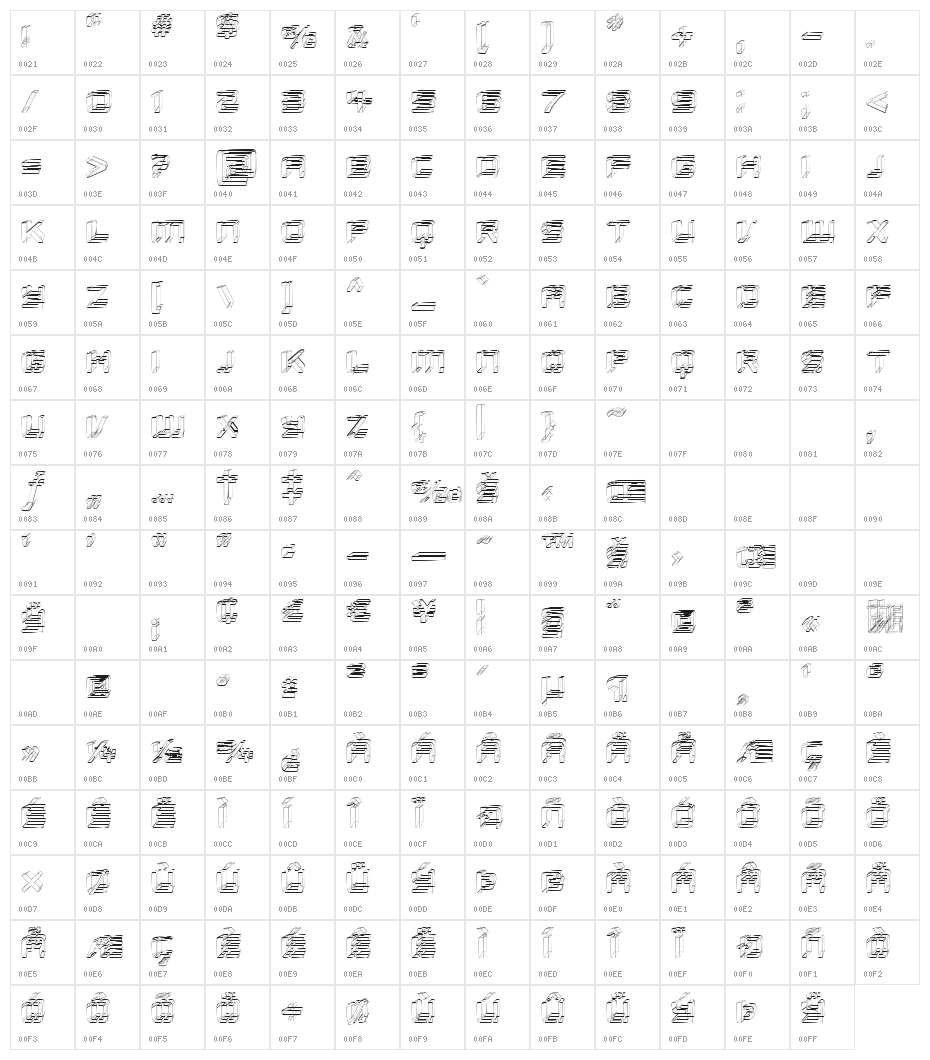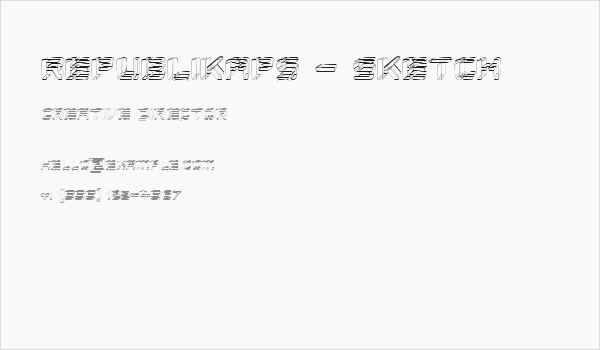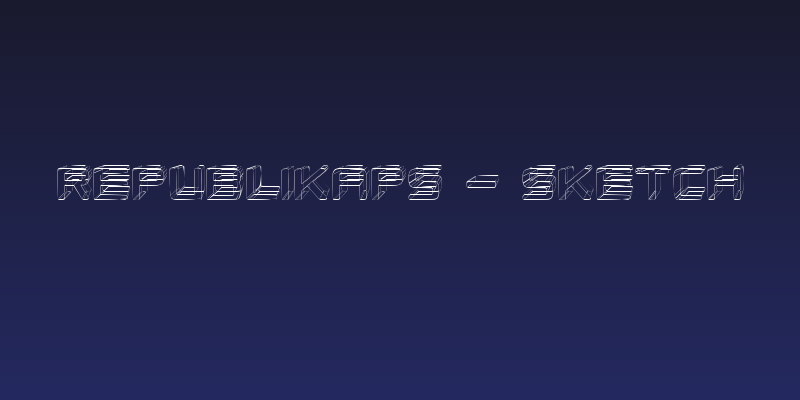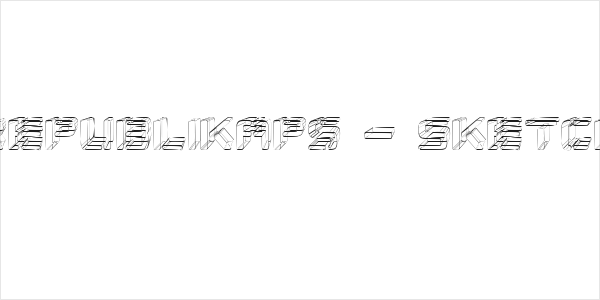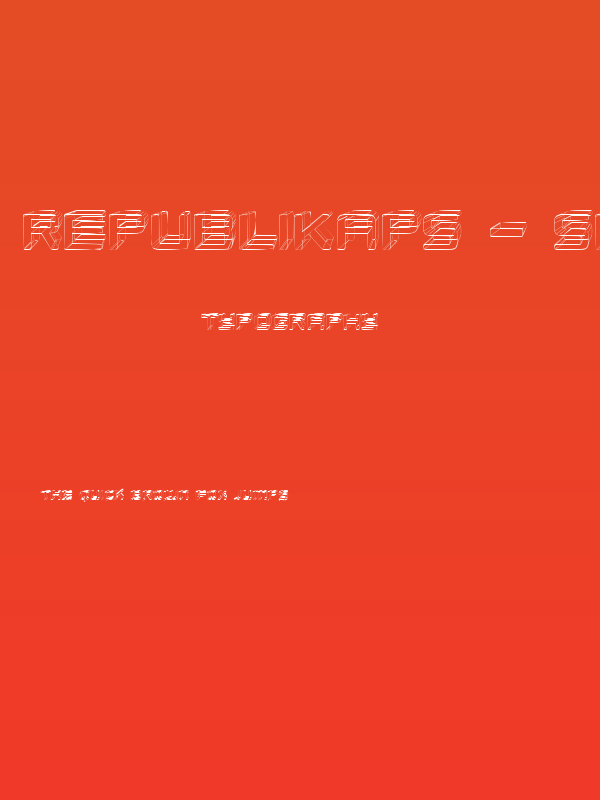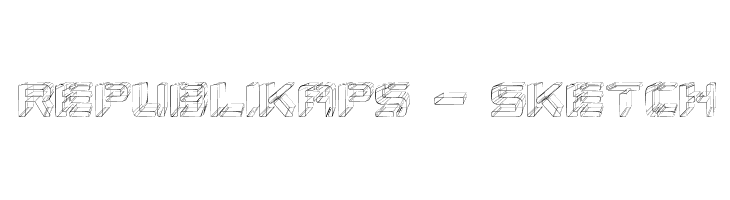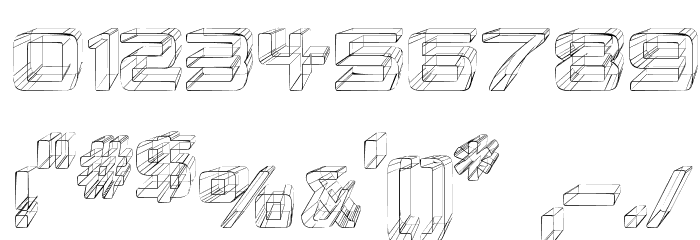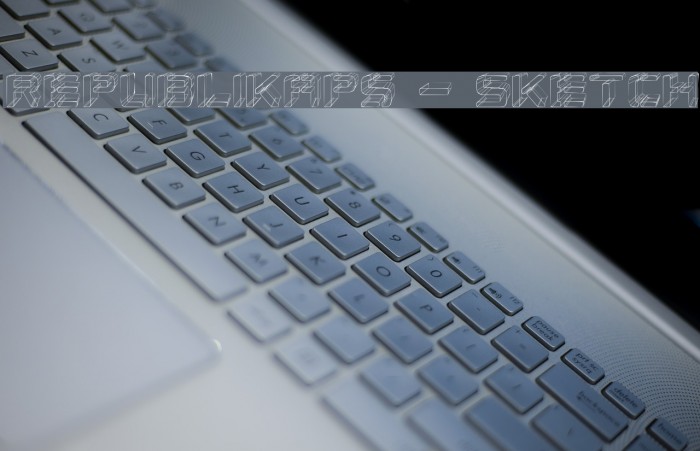
Republikaps - Sketch Font
Republikaps - Sketch Description
This font features a unique, sketch-like design with a three-dimensional appearance. The characters are constructed with a series of overlapping lines, creating a geometric and architectural feel. The uppercase and lowercase letters maintain a consistent style, with sharp angles and a bold presence. Numbers and special characters follow the same design principles, ensuring a cohesive look across all elements. The font's intricate line work gives it a hand-drawn, artistic quality, making it stand out in any design project.
| Overall Style | Modern, Artistic |
| Proposed Projects | Ideal for creative projects such as posters, album covers, branding, and any design that requires a bold, artistic touch. |